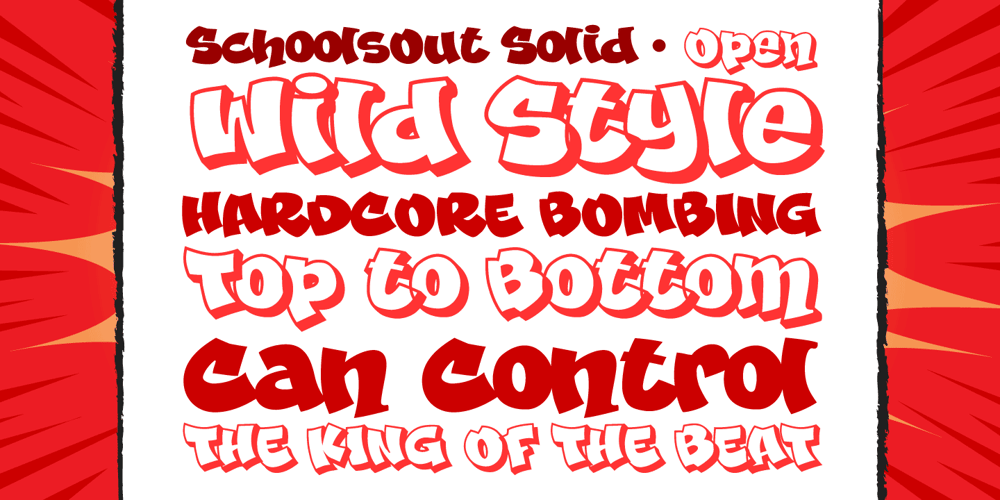
Schools Out
Schools Out font
Schools Out Font Family was designed by John Roshell and published by Comicraft. Schools Out contains 2 styles and family package options. Originally created for Sound Effects in Marvel’s GHOST RIDER 2099, our spraycan stylish SCHOOLSOUT font has just the right Scrawl of the Wild for graph-iti enthusiasts everywhere — and they wash right off with just a little splash of ’delete’. Spray it, don’t Say it!